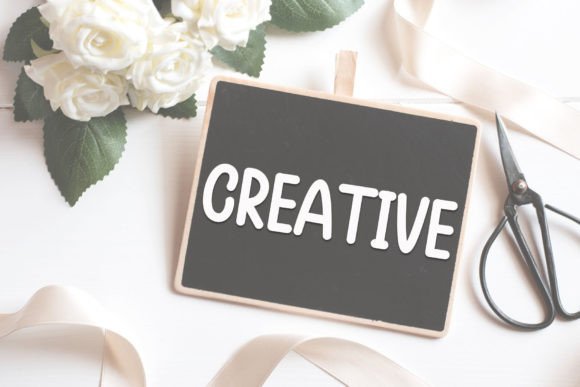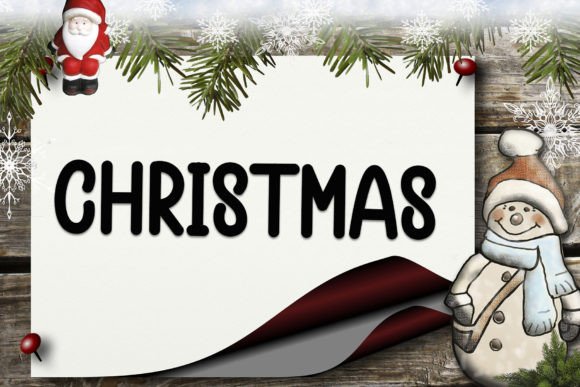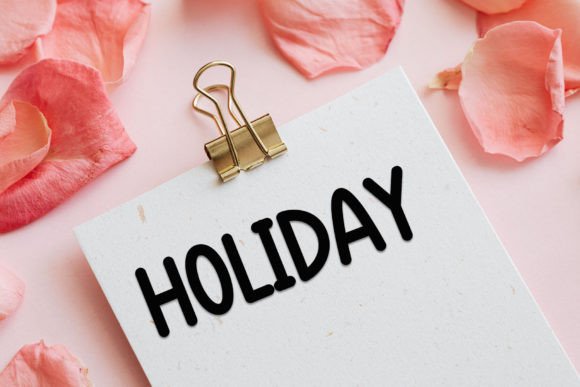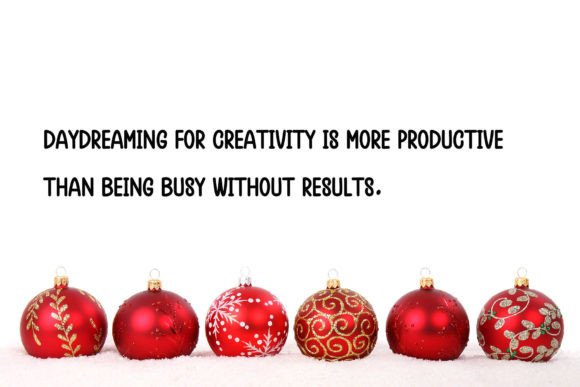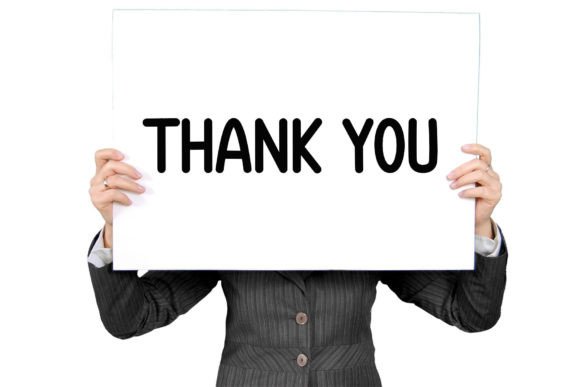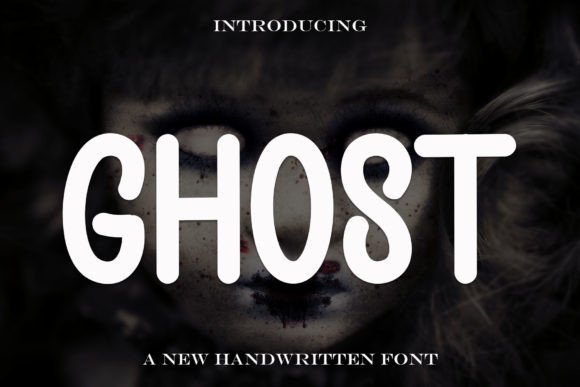
Discover the Charming Ghost Font: Elevate Your Designs with a Sweet and Friendly Handwritten Style
Are you on the hunt for a font that can add a touch of warmth and personality to your designs? Look no further than the Ghost Font, a sweet and friendly handwritten font that’s perfect for a wide range of creative projects. With its natural and unique style, Ghost Font is incredibly versatile, making it an excellent choice for designers and crafters alike.
The Characteristics of Ghost Font
Ghost Font boasts a distinctive handwritten style that’s both elegant and approachable. Its unique characteristics make it stand out from other fonts, giving your designs a personal touch that’s hard to replicate with more traditional fonts. The natural flow and subtle imperfections of Ghost Font give it a charming, human feel that’s perfect for:
- Digital and print materials
The Benefits of Using Ghost Font
So, what makes Ghost Font an excellent choice for your designs? Here are just a few benefits of using this lovely font:
- Versatility: Ghost Font is incredibly versatile, making it suitable for a wide range of designs and applications.
- Unique style: The font’s natural and unique style sets it apart from more traditional fonts, giving your designs a distinctive look.
- Ease of use: Ghost Font is easy to read and works well in a variety of sizes, making it perfect for both digital and print applications.
- Emotional connection: The friendly and approachable style of Ghost Font helps to create an emotional connection with your audience, making your designs more relatable and engaging.
How to Use Ghost Font in Your Designs
Now that you’re excited about Ghost Font, let’s explore some ways to incorporate it into your designs:
- Pair it with bold fonts: Combine Ghost Font with bold, modern fonts for a striking contrast that adds visual interest to your designs.
- Use it for headings and titles: Ghost Font is perfect for headings and titles, adding a touch of elegance and sophistication to your designs.
- Experiment with colors: Try pairing Ghost Font with a range of colors to add depth and personality to your designs.
- Add textures and patterns: Mix Ghost Font with textures and patterns to create a unique and eye-catching design.
Tips and Tricks for Getting the Most Out of Ghost Font
To help you get the most out of Ghost Font, here are some expert tips and tricks:
- Keep it simple: Don’t overcomplicate your designs – Ghost Font works best when used simply and elegantly.
- Play with sizes: Experiment with different font sizes to create visual interest and hierarchy in your designs.
- Mix and match: Combine Ghost Font with other fonts and design elements to create a unique look that’s all your own.
In conclusion, Ghost Font is a sweet and friendly handwritten font that’s perfect for designers and crafters looking to add a touch of warmth and personality to their designs. With its natural and unique style, Ghost Font is incredibly versatile, making it suitable for a wide range of creative projects. So why not give Ghost Font a try and see how it can elevate your designs?